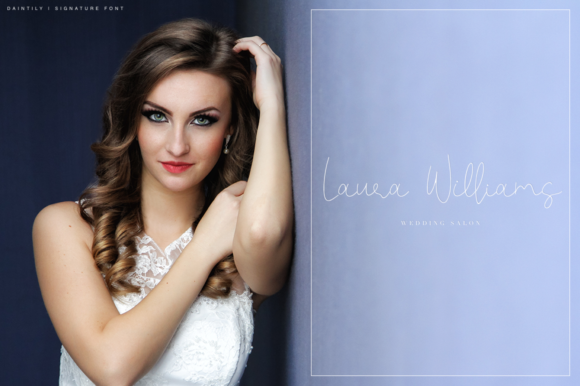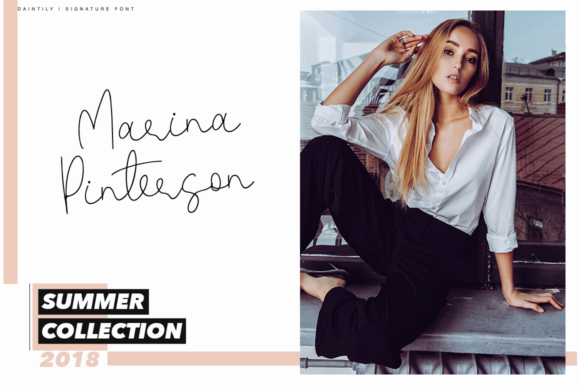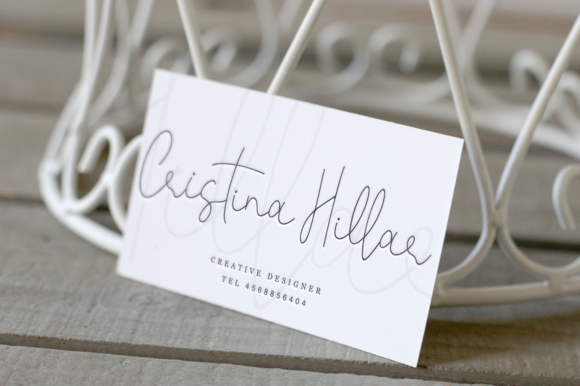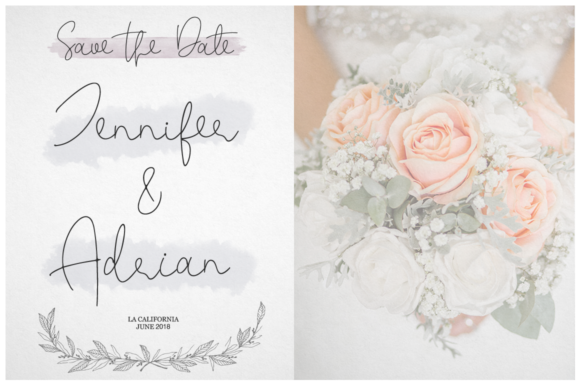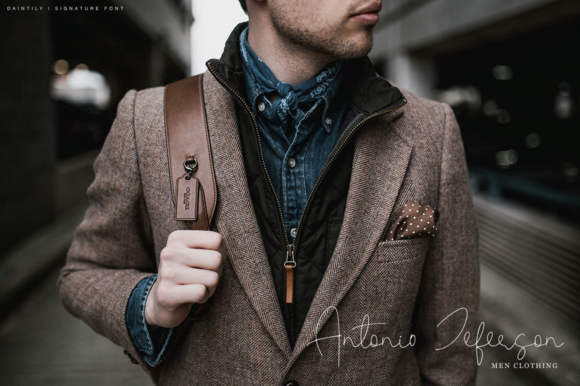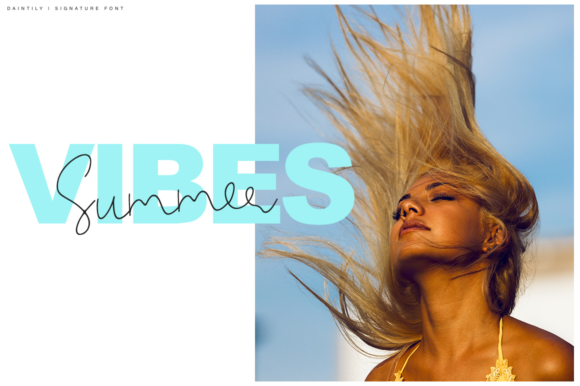
Daintily Font: Elevate Your Designs with a Touch of Elegance
In the world of typography, a font can make or break a design. For those seeking a touch of elegance and sophistication, the Daintily font is an excellent choice. This dainty and feminine script font is perfect for use in fresh and fashionable designs, adding a beautiful framework to your creations. In this article, we’ll explore the features and benefits of the Daintily font, and how it can elevate your designs to the next level.
What is Daintily Font?
Daintily font is a script font designed with a delicate and feminine touch. Its intricate and cursive letters make it perfect for use in designs that require a touch of elegance and sophistication. The font is highly versatile, making it suitable for a wide range of design projects, from logotype and signature font projects to branding and packaging designs.
Key Features of Daintily Font
- Feminine and Dainty: The Daintily font boasts a delicate and feminine design, making it perfect for use in designs that require a touch of elegance.
- Script Font: The font features intricate and cursive letters, giving it a sophisticated and refined look.
- Highly Versatile: The Daintily font can be used in a wide range of design projects, from logotype and signature font projects to branding and packaging designs.
- Easy to Read: Despite its delicate design, the Daintily font is easy to read, making it perfect for use in body text and headlines.
Benefits of Using Daintily Font
The Daintily font offers several benefits to designers and crafters. Some of the key benefits include:
- Unique and Creative: The Daintily font offers a unique and creative way to add a touch of elegance to your designs.
- Time-Saving: With the Daintily font, you can save time and effort in creating custom lettering and typography for your designs.
- Consistency: Using a font like Daintily ensures consistency in your designs, which is essential for building a strong brand identity.
- Scalability: The Daintily font is highly scalable, making it perfect for use in a wide range of design projects, from business cards to billboards.
Use Cases for Daintily Font
The Daintily font is highly versatile and can be used in a wide range of design projects. Some of the most popular use cases include:
- Logotype and Signature Font Projects: The Daintily font is perfect for use in logotype and signature font projects, adding a touch of elegance and sophistication to your brand’s identity.
- Branding and Packaging Designs: The font can be used in branding and packaging designs to add a touch of femininity and elegance.
- Wedding and Event Designs: The Daintily font is perfect for use in wedding and event designs, such as invitations, menus, and programs.
- Fashion and Beauty Designs: The font can be used in fashion and beauty designs, such as logos, labels, and advertisements.
Tips for Using Daintily Font
To get the most out of the Daintily font, here are some tips to keep in mind:
- Use it Sparingly: While the Daintily font is beautiful, it’s best to use it sparingly to avoid overwhelming your design.
- Pair it with Other Fonts: The Daintily font pairs well with other fonts, such as sans-serif fonts, to create a visually appealing design.
- Experiment with Colors: The Daintily font looks great in a variety of colors, so don’t be afraid to experiment and find the perfect color scheme for your design.
In conclusion, the Daintily font is a beautiful and elegant script font that’s perfect for use in fresh and fashionable designs. Its delicate and feminine design makes it perfect for use in logotype and signature font projects, branding and packaging designs, and more. With its highly versatile design and ease of use, the Daintily font is a must-have for designers and crafters looking to add a touch of elegance to their creations.